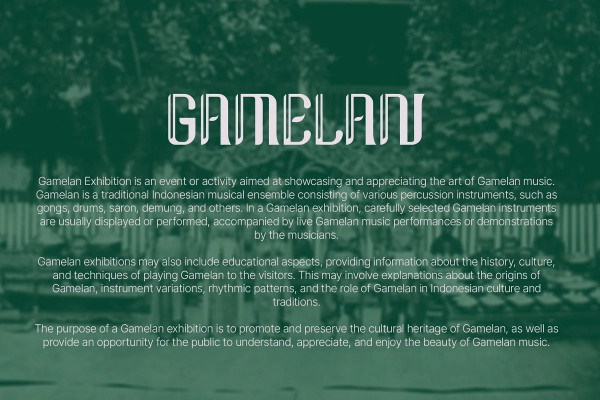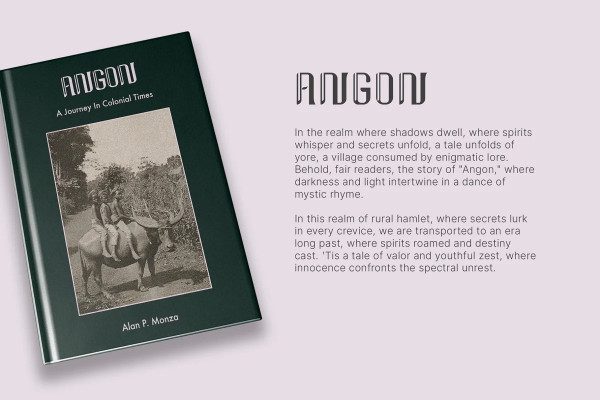
Bagawantha Font
Bagawantha Font is a decorative font that embodies an ethnic ambiance, uniqueness, and strong character. This font is meticulously crafted to evoke the richness of cultural heritage and unforgettable beauty. “Bagawantha” boasts awe-inspiring letterforms adorned with intricate details and captivating ornaments. Each letter exudes elegance and individuality with a distinctive ethnic style. From graceful curves to intricate embellishments, this font seamlessly blends artistic elements to create a visually striking display. With “Bagawantha,” you can infuse your designs with a touch of magic and exoticism. Its bold personality and pronounced ethnic aura make it ideal for crafting logos, titles, and other design elements that demand a special emphasis and remarkable visual appeal. This is the perfect choice for those seeking to enrich their designs with a unique ethnic touch. With its breathtaking beauty and captivating uniqueness, it will add a new dimension to your design projects, elevating the overall aesthetic with unparalleled charm.